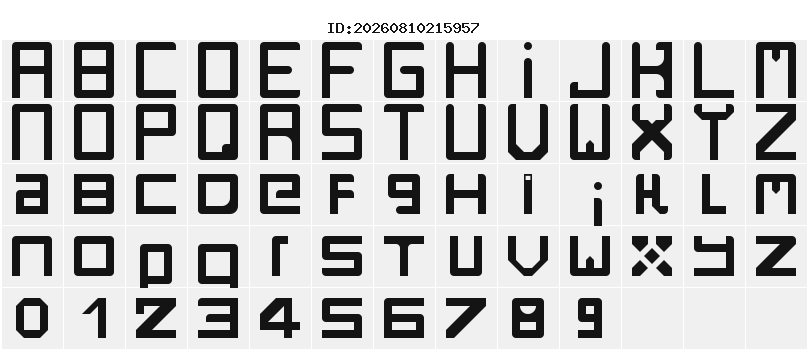
• Designer: ‘rzrarti’
About rzrarti.ttf
rzrarti.ttf is a modern, elegant sans-serif font designed for ultimate readability and visual harmony. Perfect for branding, headlines, web design, and print materials.